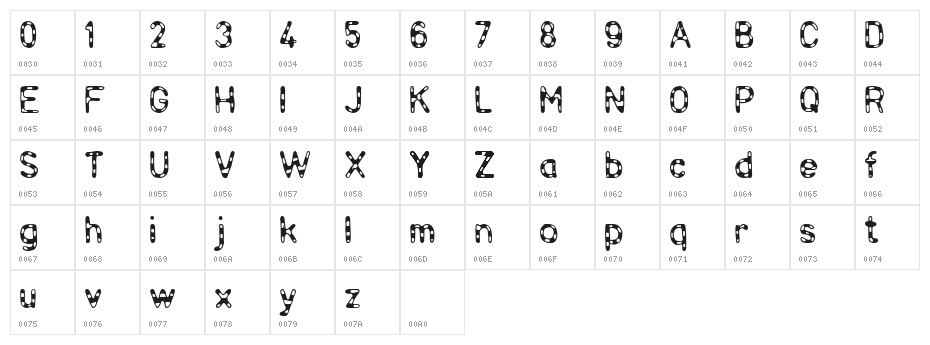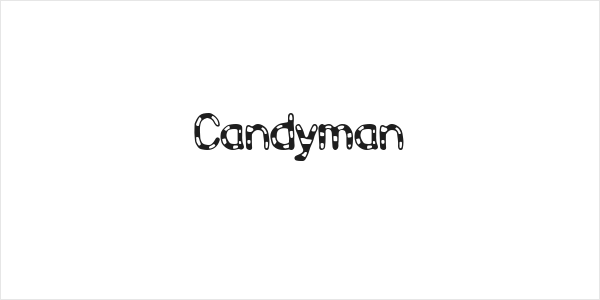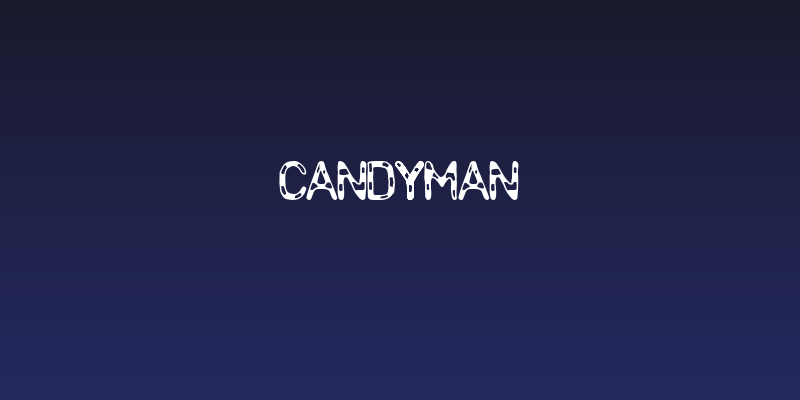
Candyman Font
Candyman Description
This playful and whimsical font features bold, rounded characters with a unique polka dot pattern inside each letter. The design evokes a sense of fun and creativity, making it ideal for projects that aim to capture a youthful or lighthearted vibe. The letters are evenly spaced, with a consistent thickness that adds to the font's readability despite its decorative elements. The numbers and special characters maintain the same playful style, ensuring a cohesive look across all text elements.
| Overall Style | Playful |
| Proposed Projects | Ideal for children's books, party invitations, playful branding, and creative posters. |